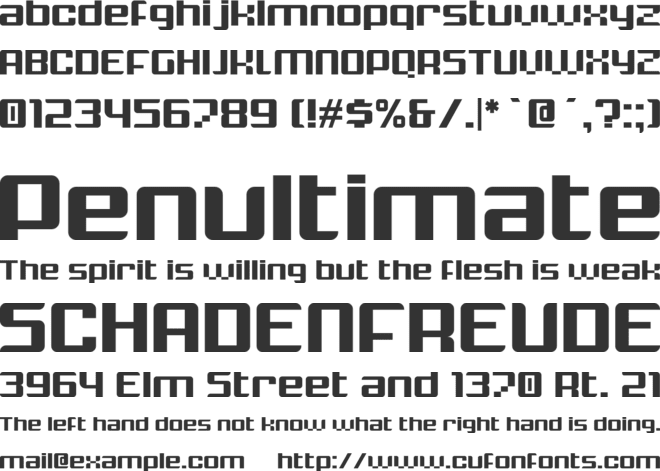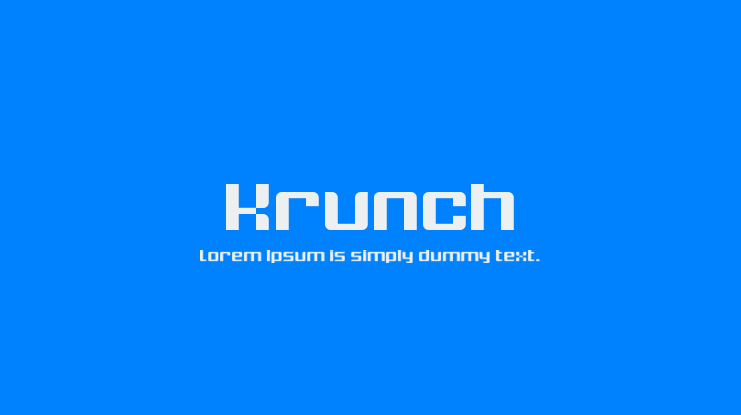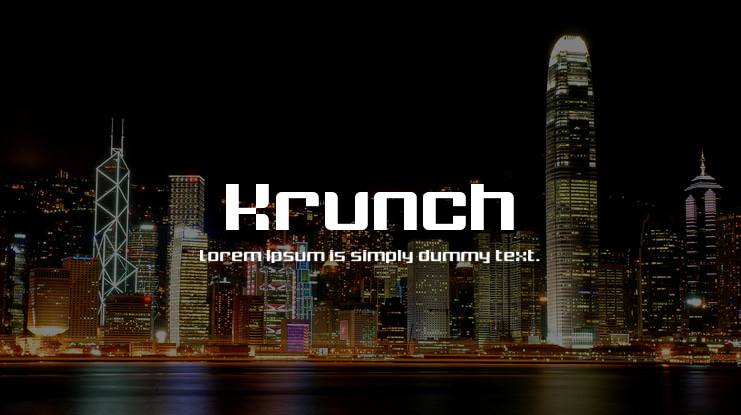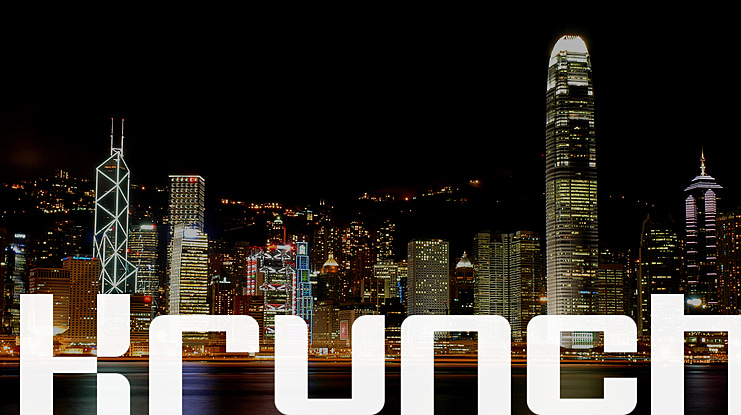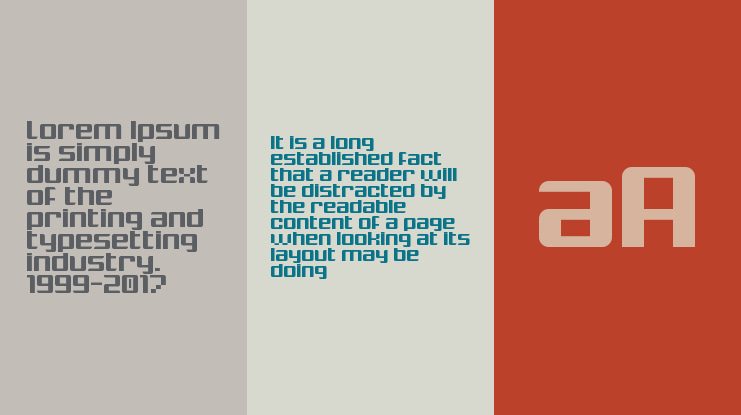
Krunch Font Family
Krunch is a sans-serif techno font perfect for letterhead, posters and logos. It comes in 2 styles and has a complete western character set of 187 glyphs. For a commercial license, visit my store.